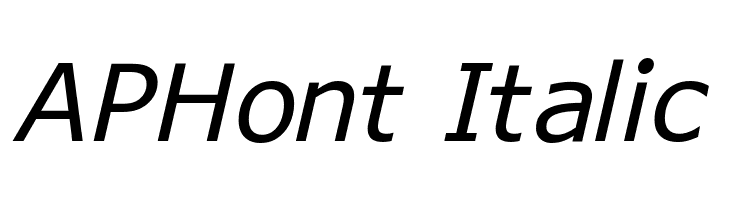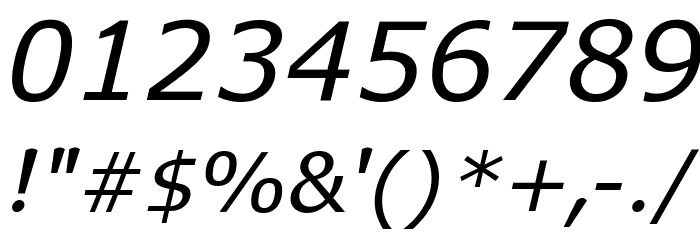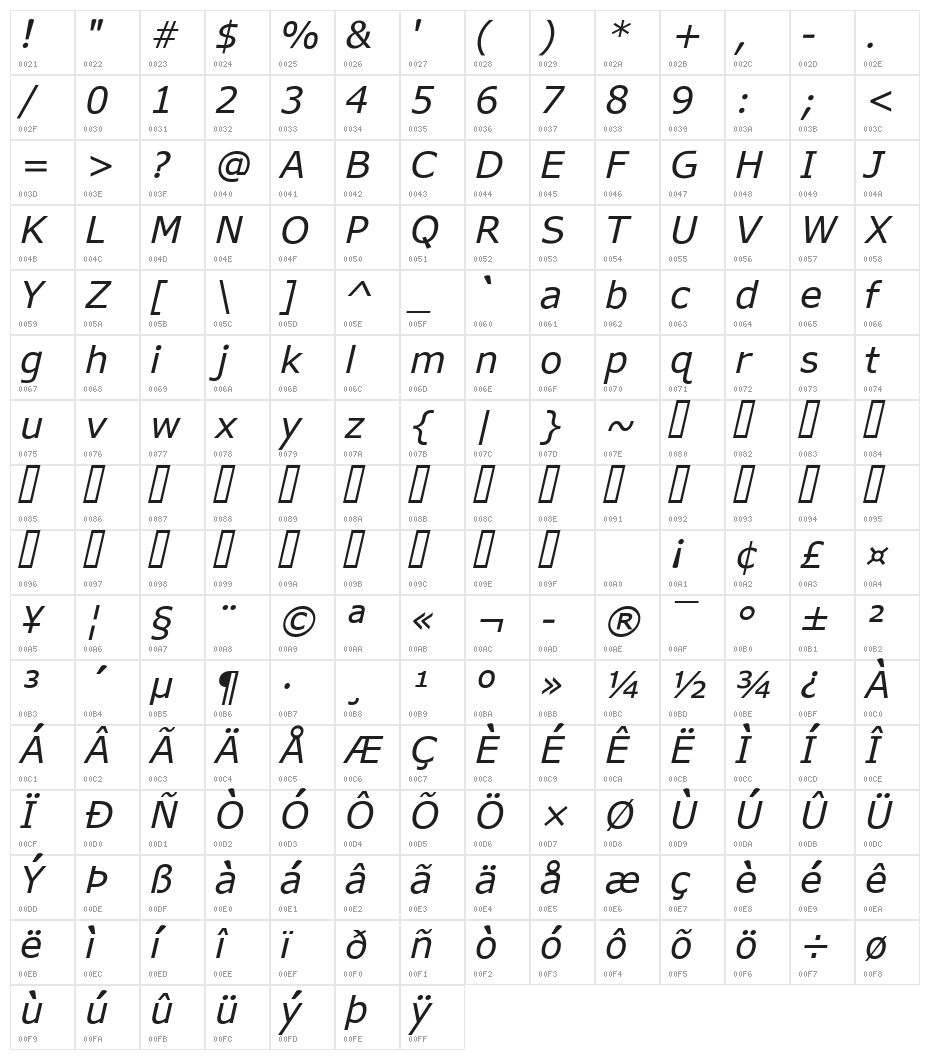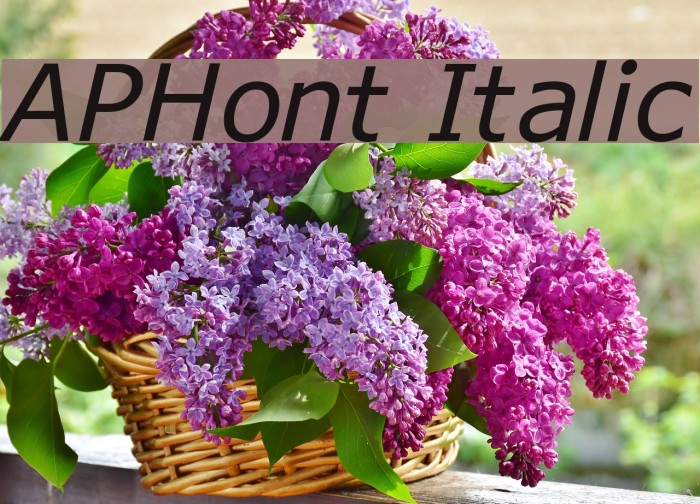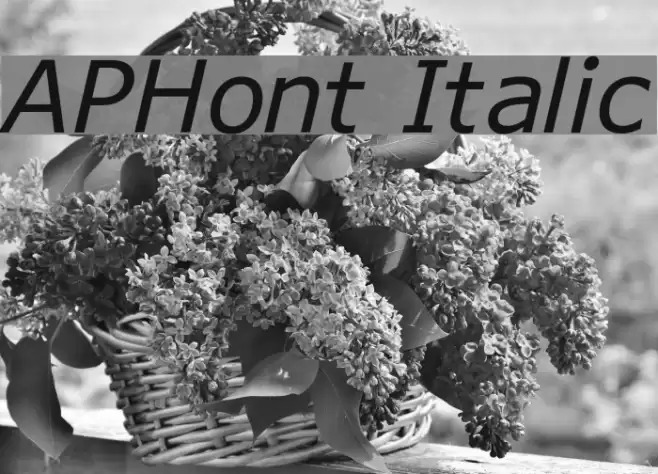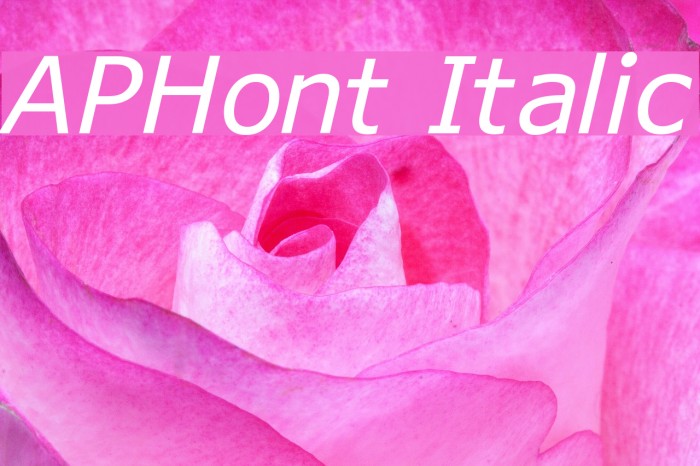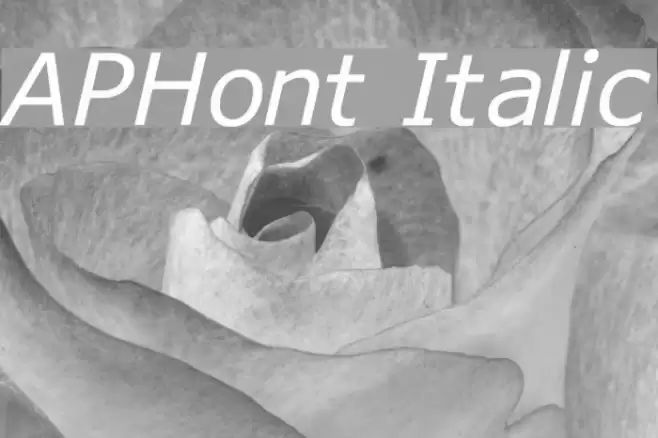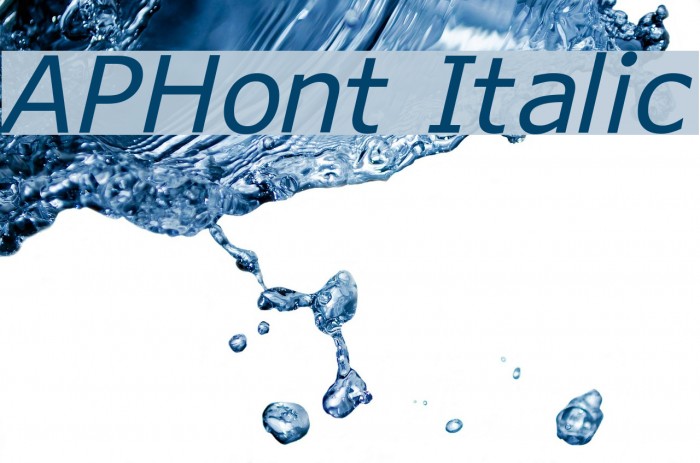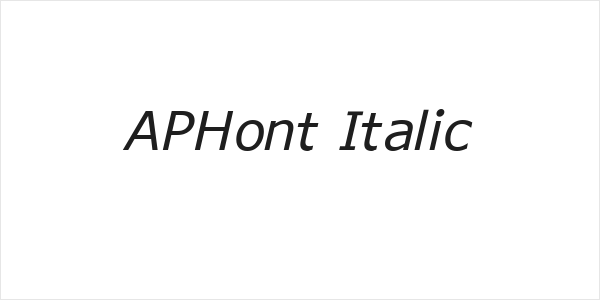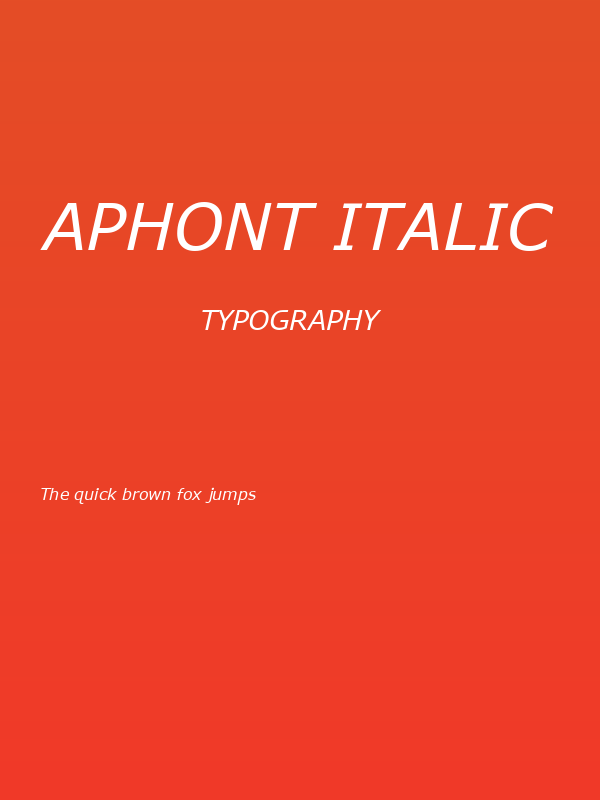
APHont Italic Font
APHont Italic Description
This font features a clean and modern design with a slight slant, giving it an italicized appearance. The characters are well-proportioned, with a consistent stroke width that maintains readability across various sizes. The uppercase letters are bold and assertive, while the lowercase letters offer a more subtle and approachable feel. Numbers are clear and distinct, making them suitable for both text and numerical data. The special characters are well-integrated, ensuring a cohesive look throughout. This font is versatile, suitable for both digital and print media, and can be used effectively in professional and casual contexts.